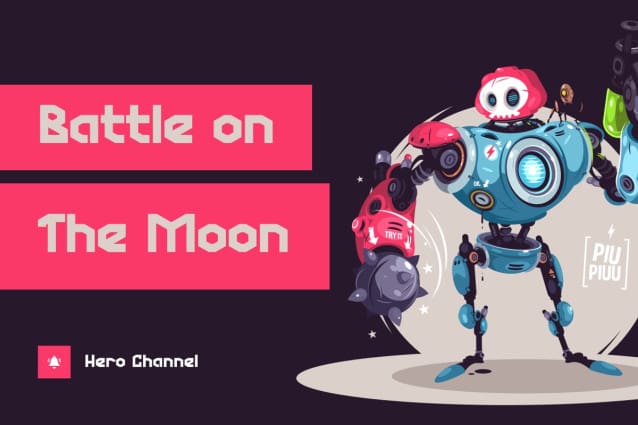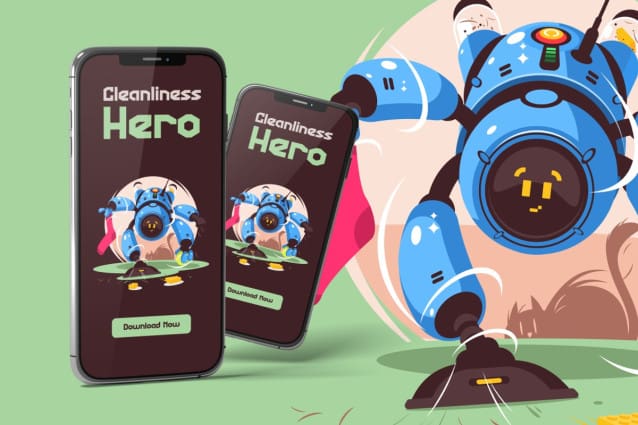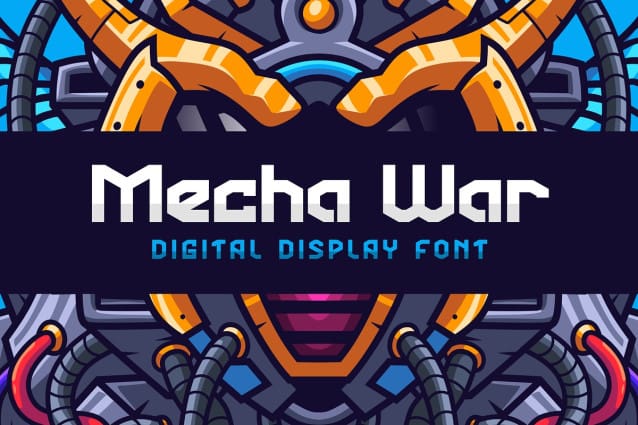
Mecha War Font
Mecha War Font – the ultimate digital display font for all your futuristic needs! This Sans Serif font boasts a modern, gaming-inspired design that’s perfect for use in movies, YouTube videos, Instagram posts, and more. Whether you’re looking to add a sleek, high-tech touch to your branding or want to create an eye-catching title sequence, Mecha War is the font for you.
With its clean lines and bold shapes, Mecha War is sure to make a statement wherever it’s used. And, as a bonus, this display font also comes with plenty of nature foliage and floral elements, allowing you to create an organic and natural style that’s all your own.